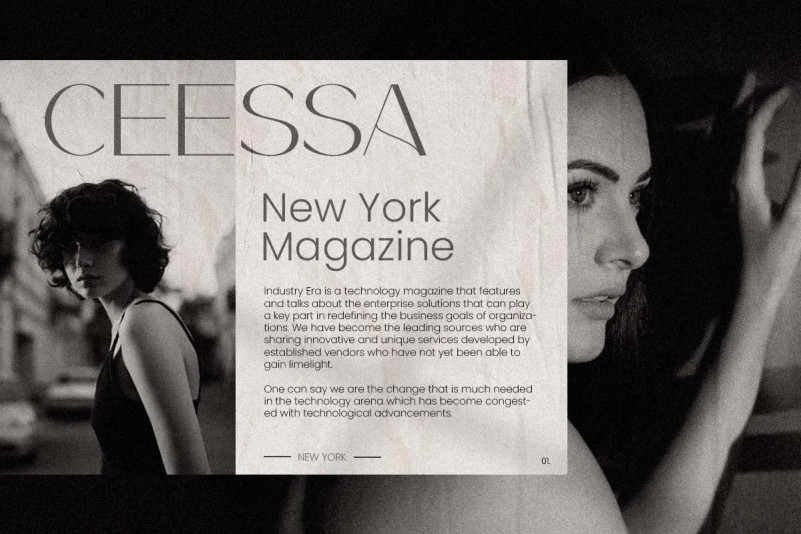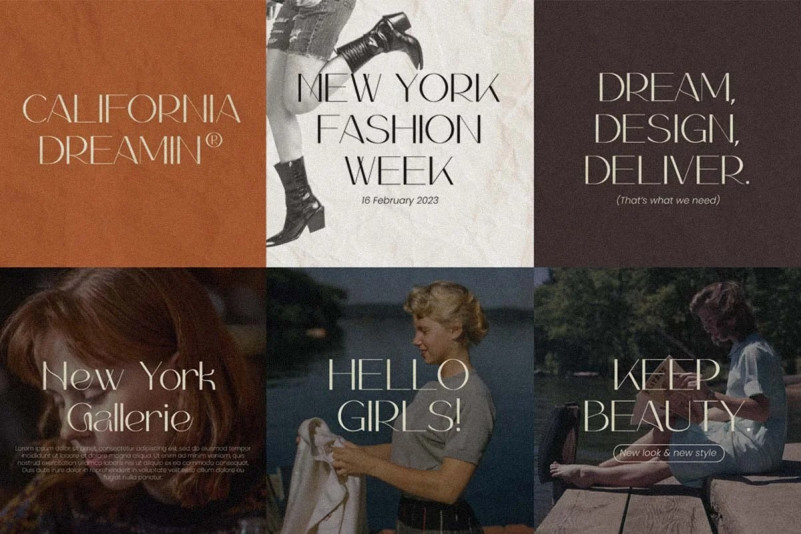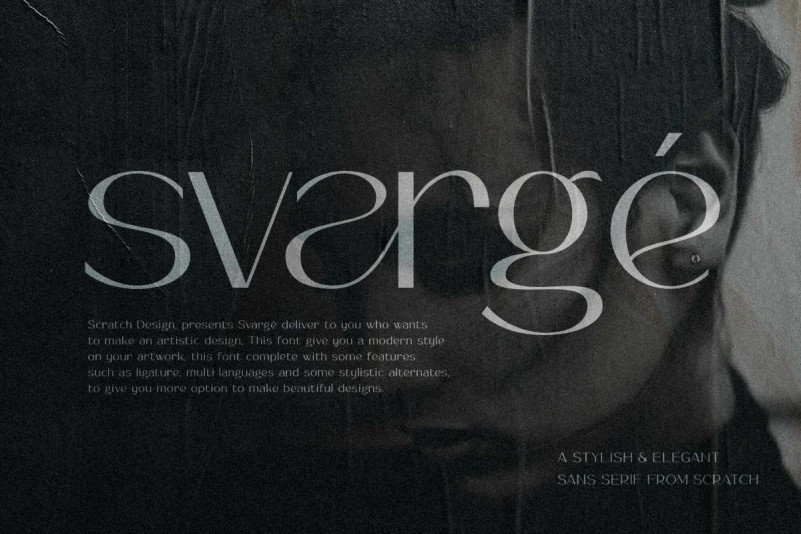
Svarge Font
Introducing our new font Svargé A Modern Elegant Sans Serif Font
Svargé is a Modern Elegant Classic font with beautiful shape on each character, come with special alternative glyphs, and has multilingual support. This is a very versatile font that works great in large and small sizes with any background color. Perfect for Magazine Titles, Branding Projects, Logo Design, Clothing & Fashion Branding and Product Packaging.